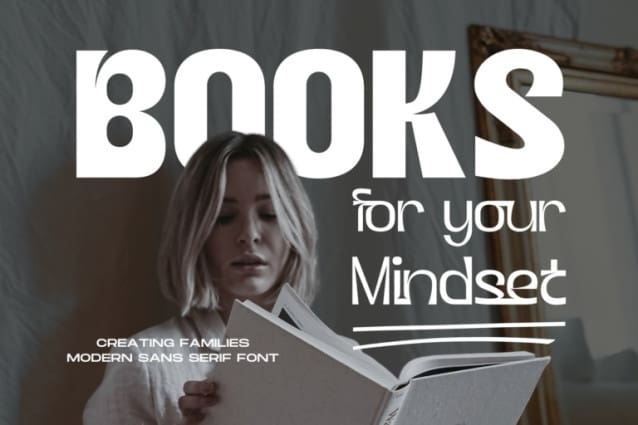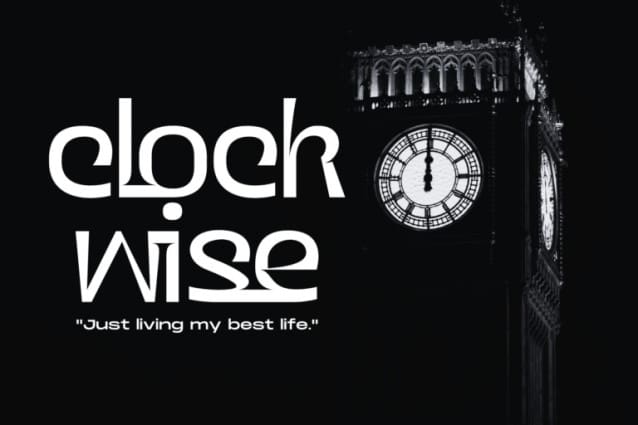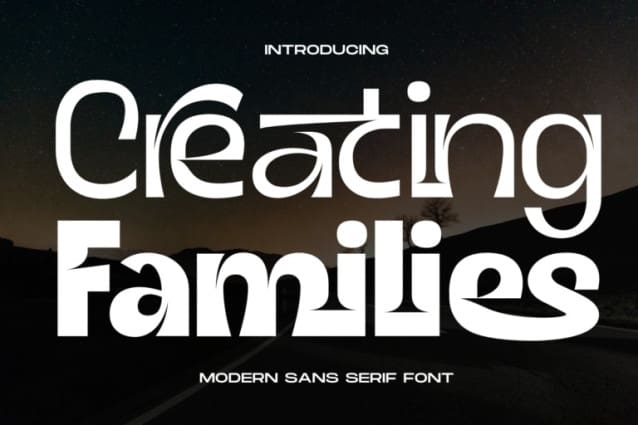
Creating Families Font
Creating Families Font is a modern display typeface that blends bold geometric forms with smooth, clean lines. Its sleek design is perfect for making a striking impact in both print and digital media. It’s a design tool that elevates brands, making them both distinctive and memorable. Its versatility allows it to be used for logos, modern websites, packaging, business cards, and more, seamlessly adapting to various styles and industries.
Creating Families was built with OpenType features and includes 100 ligatures, alternate, numbers, punctuation, and it also supports other languages.